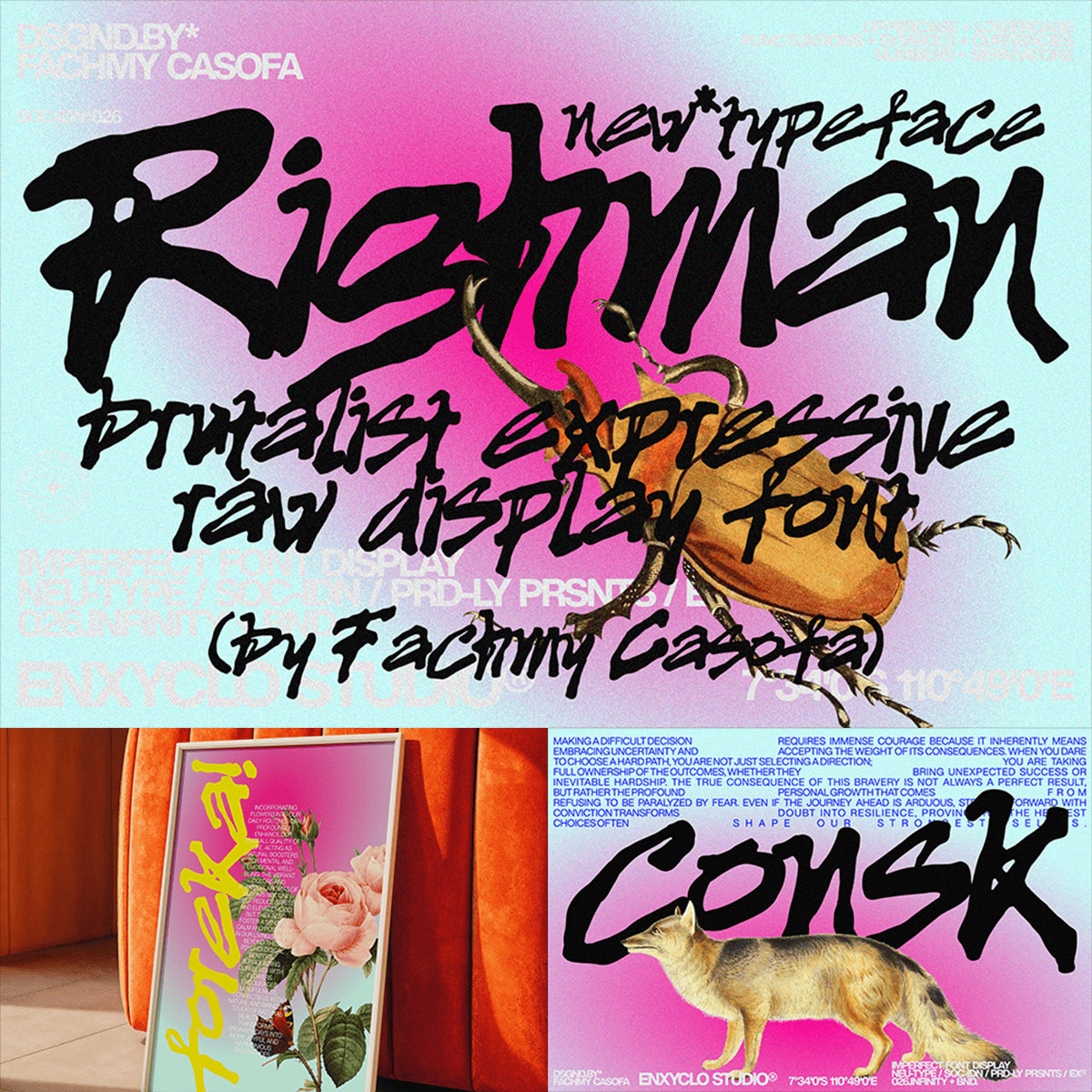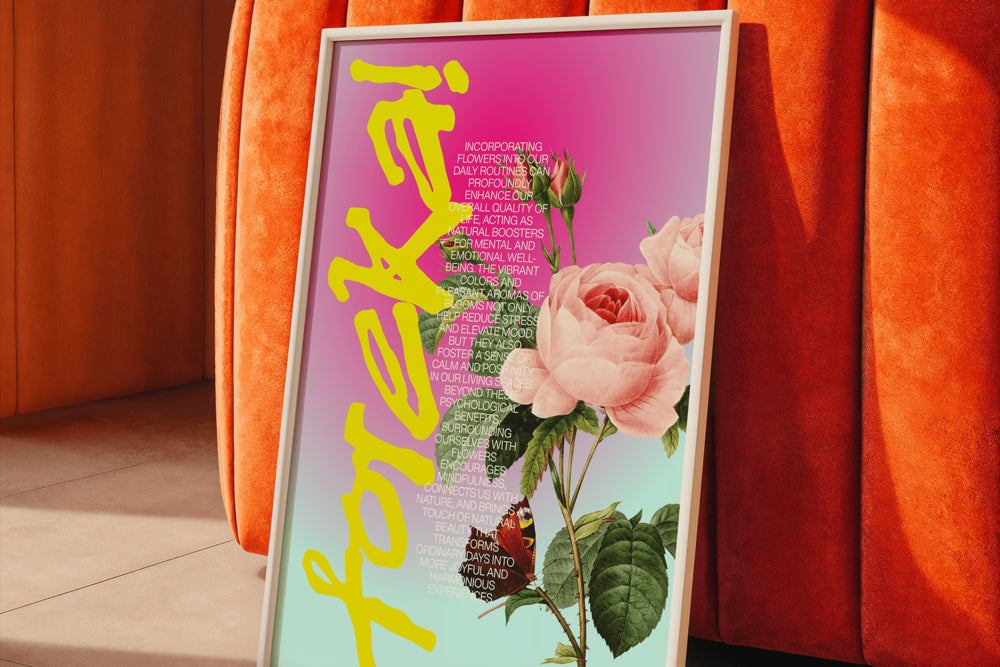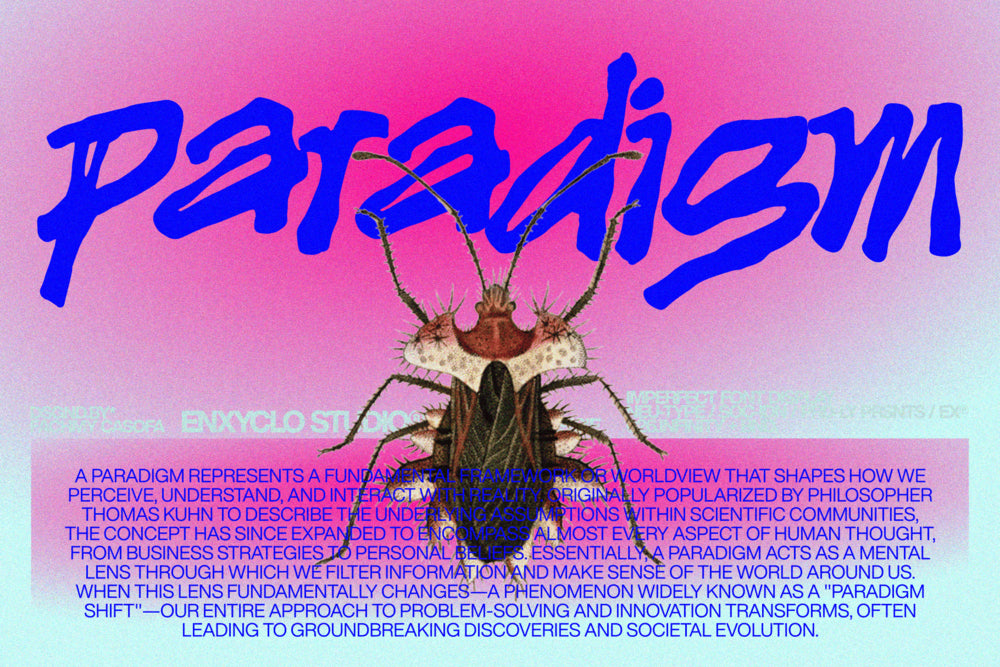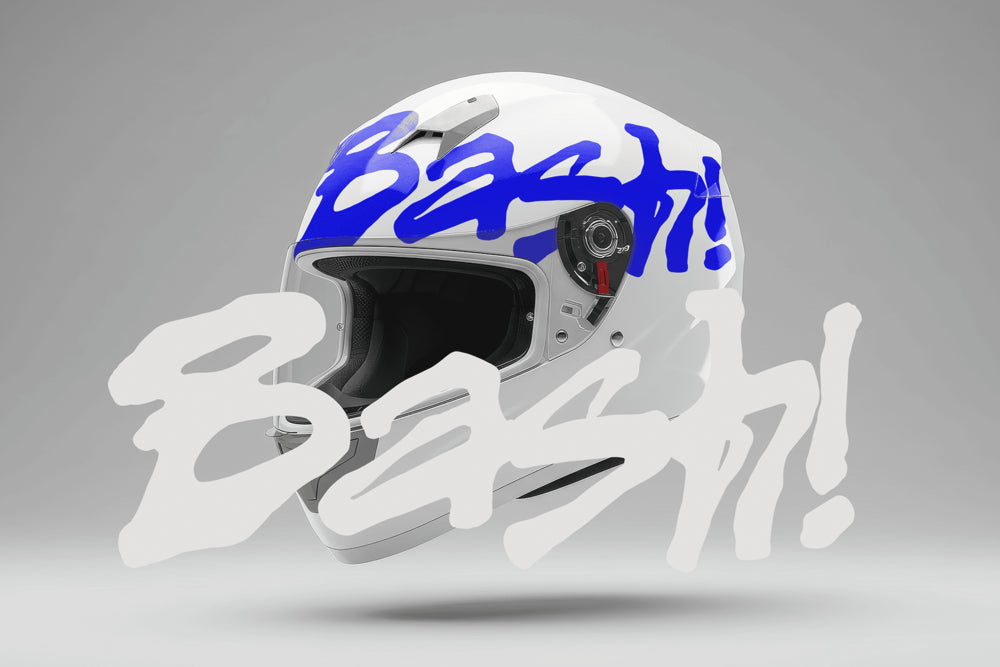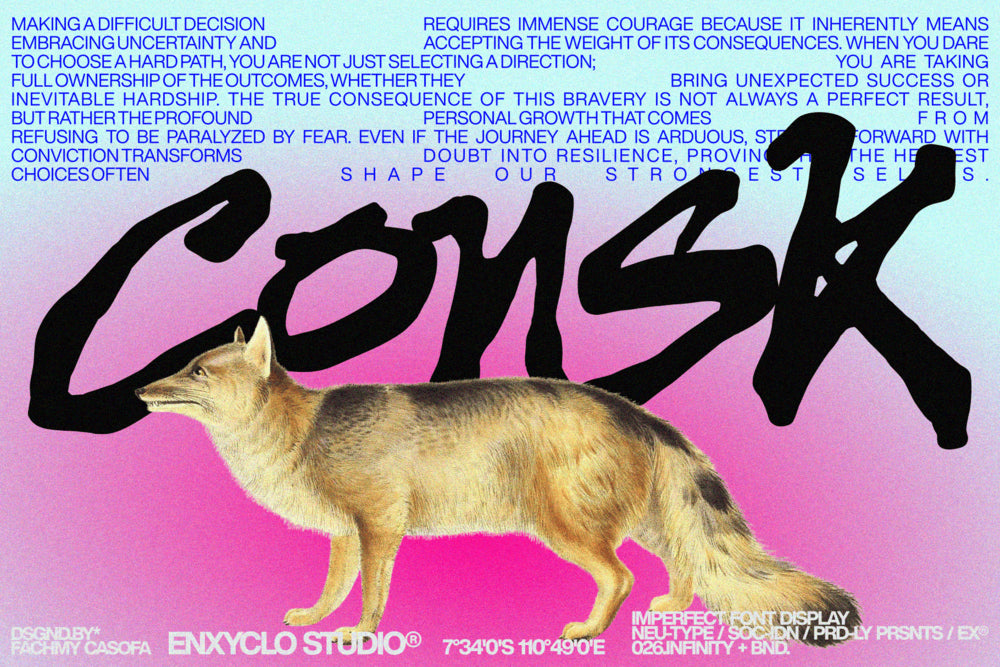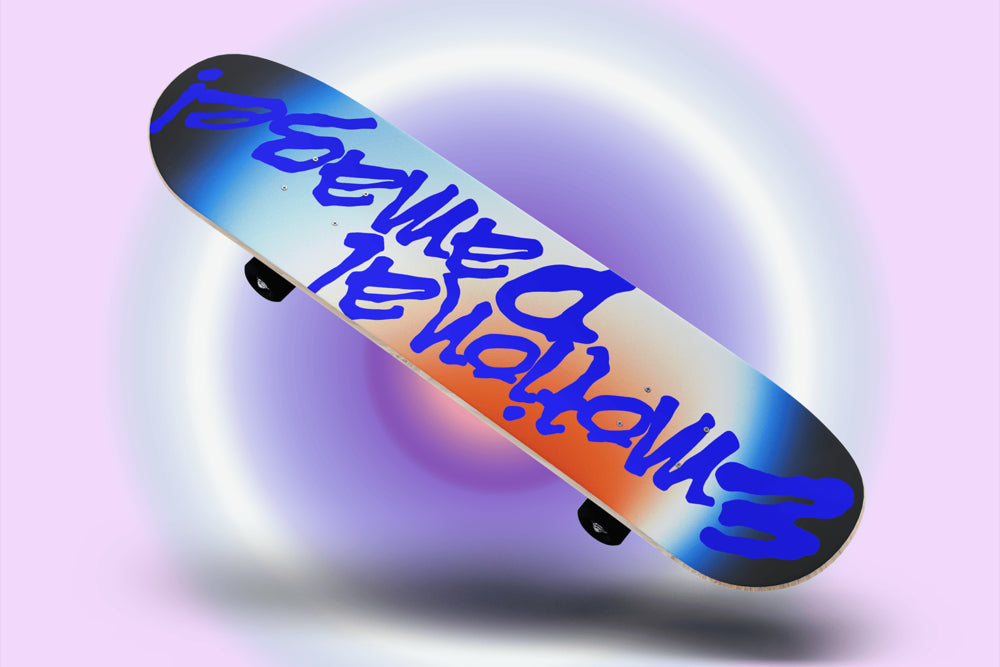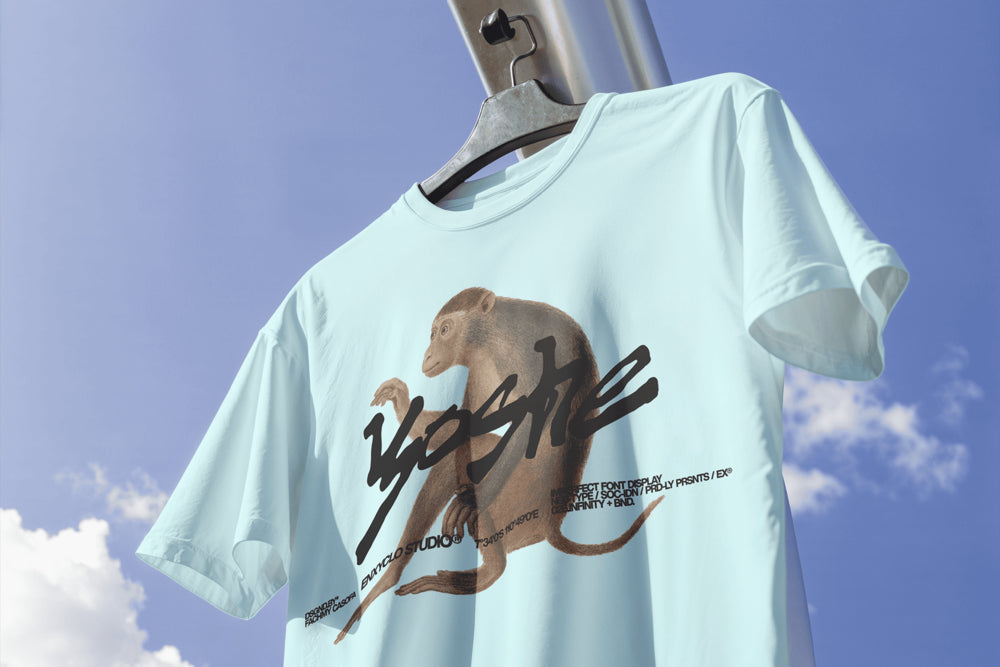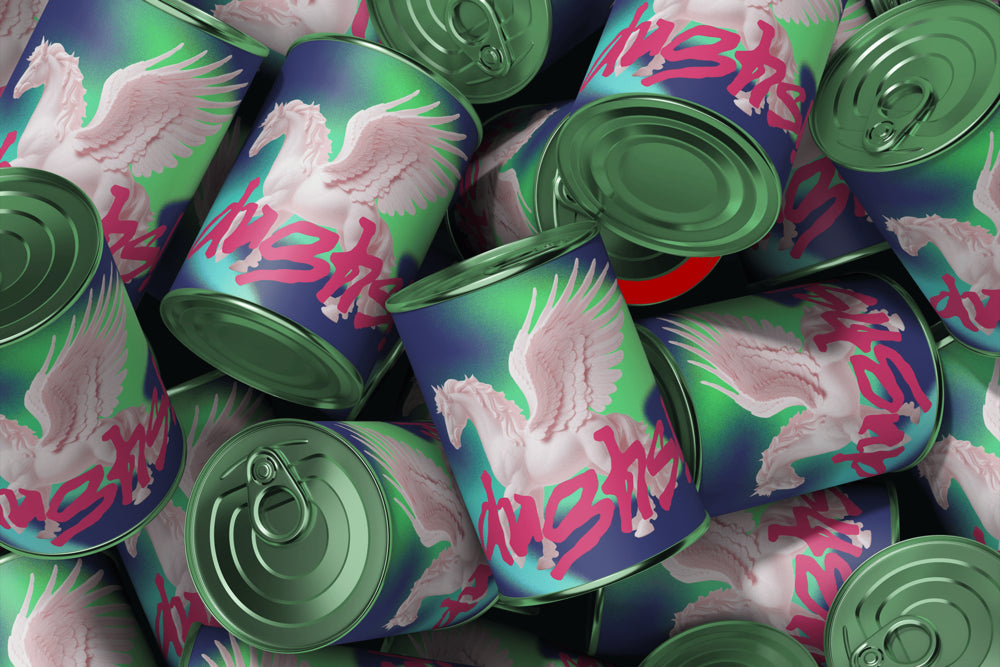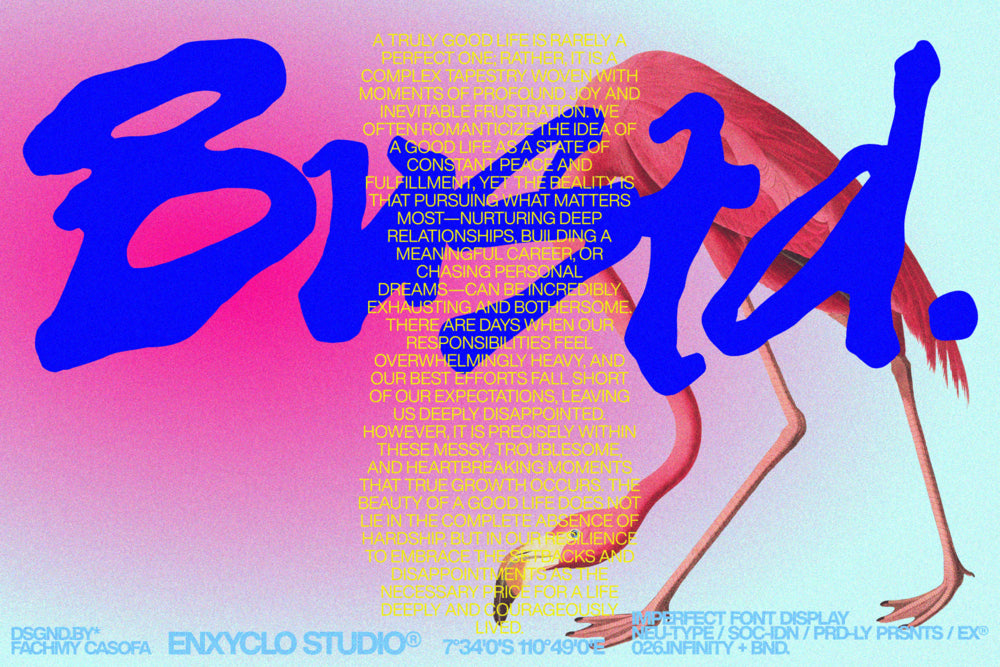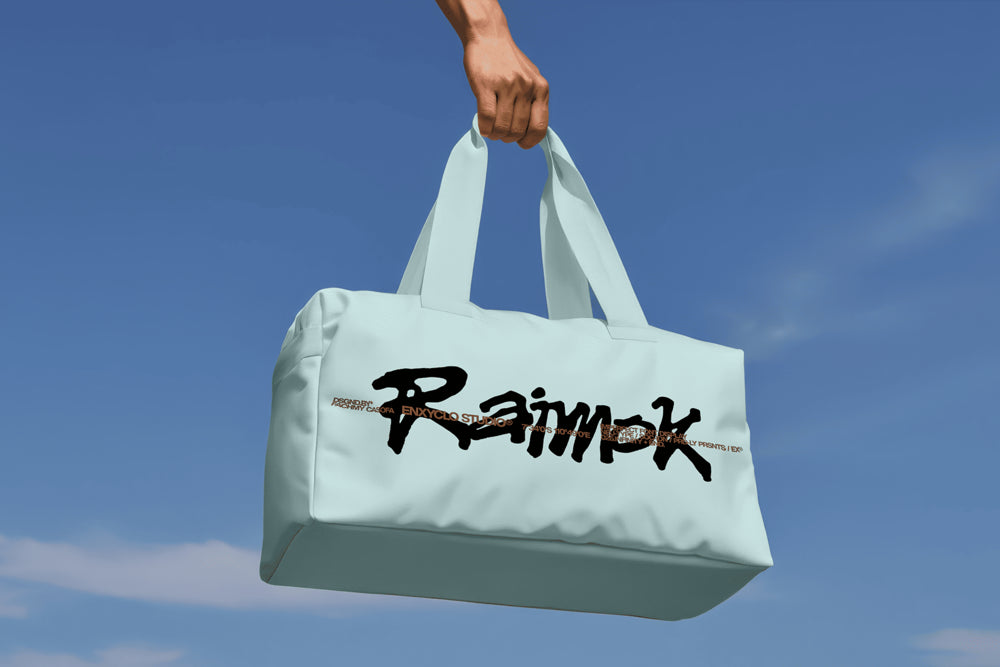
RIGHMAN — Modern Branding Font
RIGHMAN is a raw imperfect handdrawn font created for modern brands that want to break away from polished, predictable typography. Inspired by urban culture, graffiti, grunge, and expressive brush lettering, it brings a gritty handmade energy to every word. Its rough edges, spontaneous strokes, and imperfect details create a bold visual character that feels authentic, rebellious, and unapologetically creative.
Whether you’re designing an event or festival poster, graffiti-inspired artwork, grunge campaign, bold logo, or modern brand identity, RIGHMAN adds instant character and visual impact. Its expressive forms are made to command attention while maintaining the handcrafted quality that makes contemporary typography feel human and authentic.
RIGHMAN is a modern hand-drawn font that features a raw, imperfect style inspired by urban culture, graffiti, and grunge. It includes uppercase and lowercase letters, punctuation marks, symbols, and currency symbols, available in OTF, TTF, and WOFF formats.